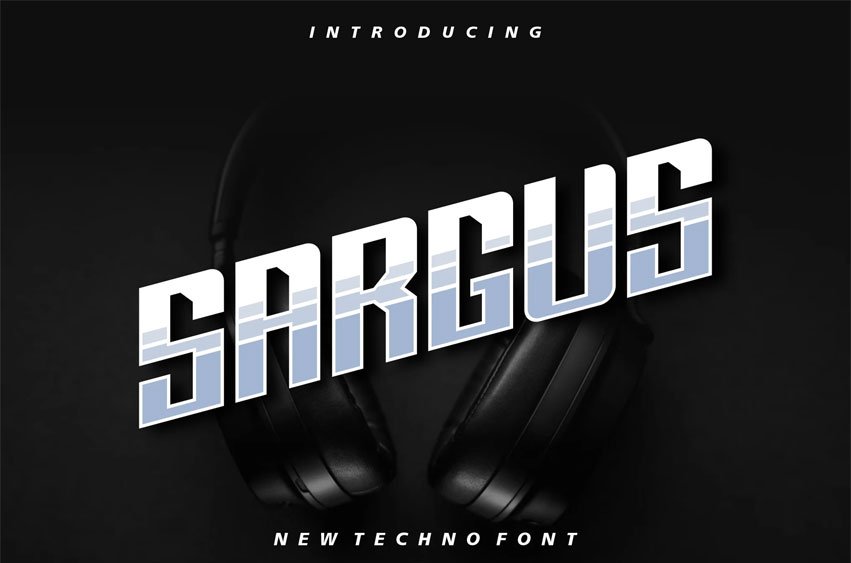
Sargus Font Modern Font is a bold and authentic display font.
The font is suitable for any branding project like logo, t-shirt printing, esport, and many more. outstanding in a wide range of contexts.